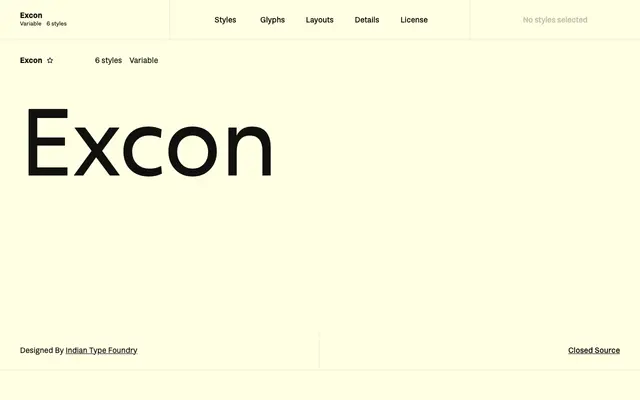
Excon
A six-weight sans serif by Alisa Nowak that pays homage to Roger Excoffon's top-heavy letterforms, with stroke contrast that grows more pronounced from Thin to Black.
Designed by Alisa Nowak and released through Indian Type Foundry via Fontshare in 2021, Excon takes its cue from French sans serifs of the 1950s and 60s, particularly the top-heavy construction associated with Roger Excoffon. Stroke contrast is deliberately restrained in the lighter weights and becomes quite marked in the Black, giving the family a range of texture across its six styles. Practical details include a tall x-height, ascenders that exceed the cap height, and proportionally-spaced numerals drawn to cap height.
Excon draws on French-style sans serifs of the 1950s and 60s, referencing Roger Excoffon's top-heavy letterforms and including stroke contrast that increases through the weight range, placing it closer to humanist sans than geometric or grotesque traditions.